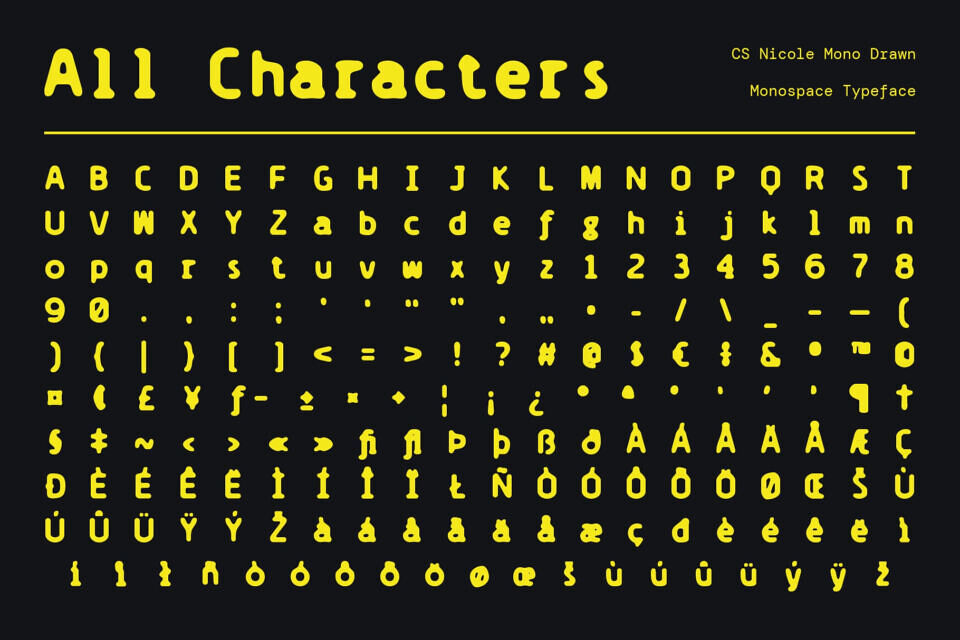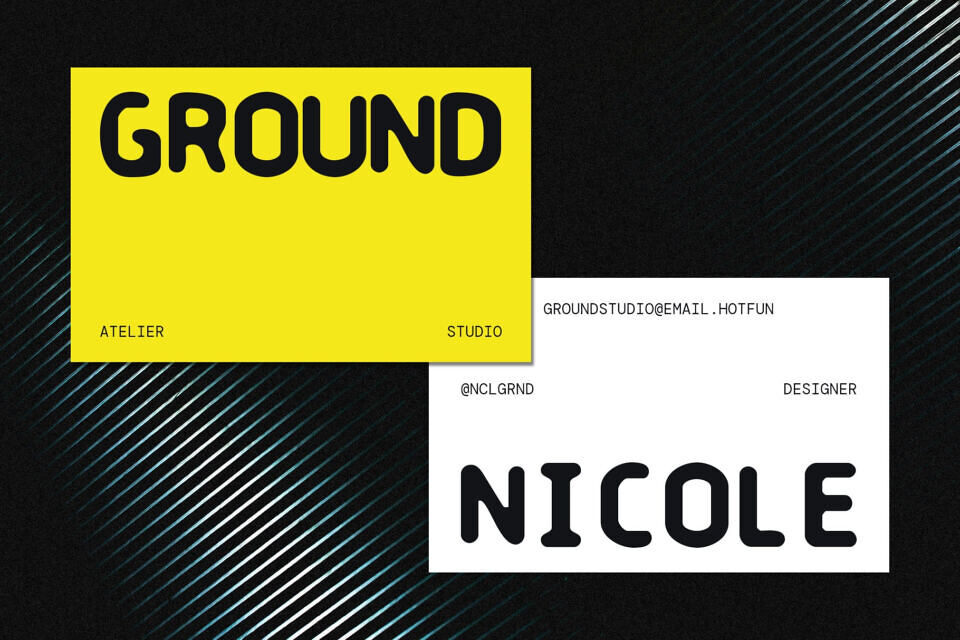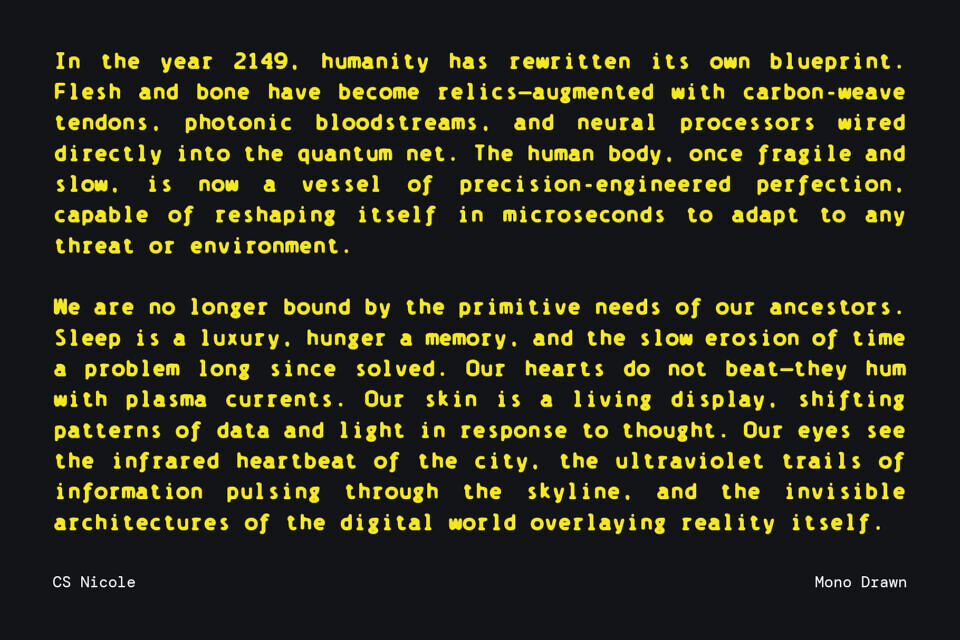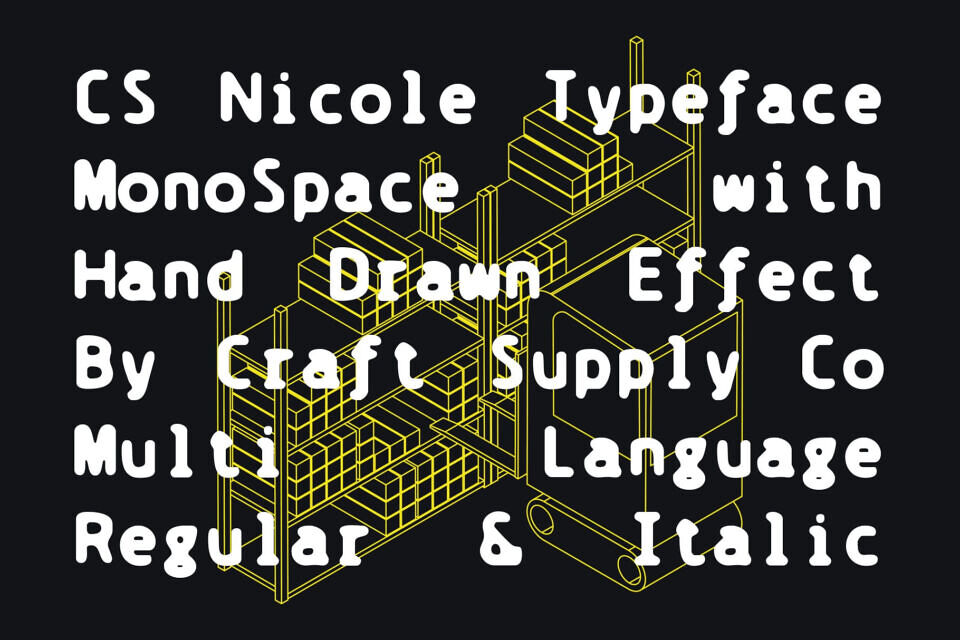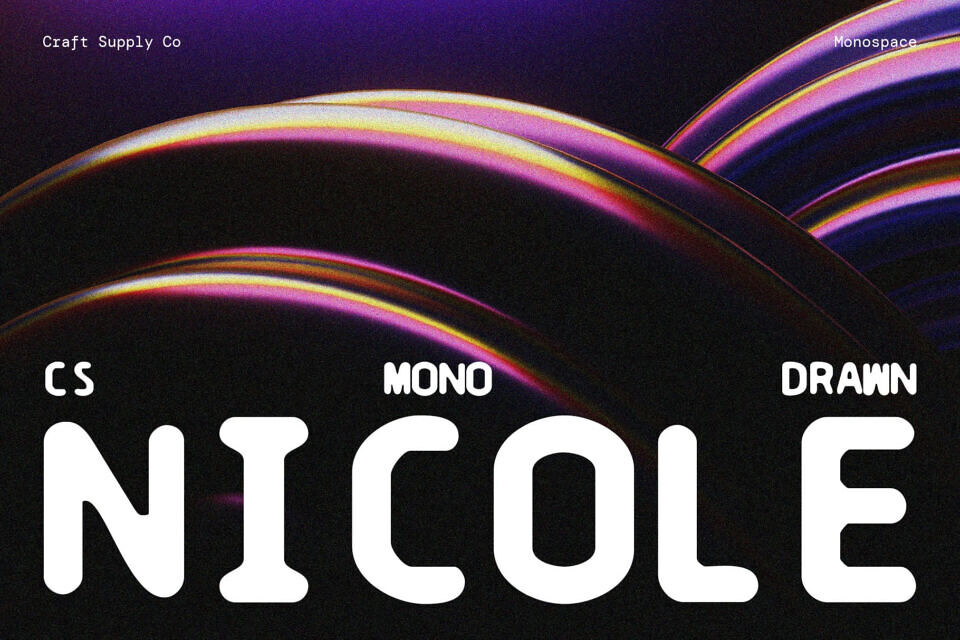
Cs Nicole Mono Drawn Font
This font features precise, modern monospaced sans serif shapes. Its clean geometry and consistent spacing ensure optimal readability, making it ideal for designs that demand clarity, professionalism, and visual balance.
Enhanced with a subtle drawn effect, each character carries a handmade texture that adds personality and uniqueness. This artistic touch transforms the monospaced design into a visually engaging and expressive font, perfect for creative applications.
From posters and branding materials to coding visuals and digital interfaces, this minimalist and sophisticated monospaced font adapts effortlessly to a variety of design contexts.